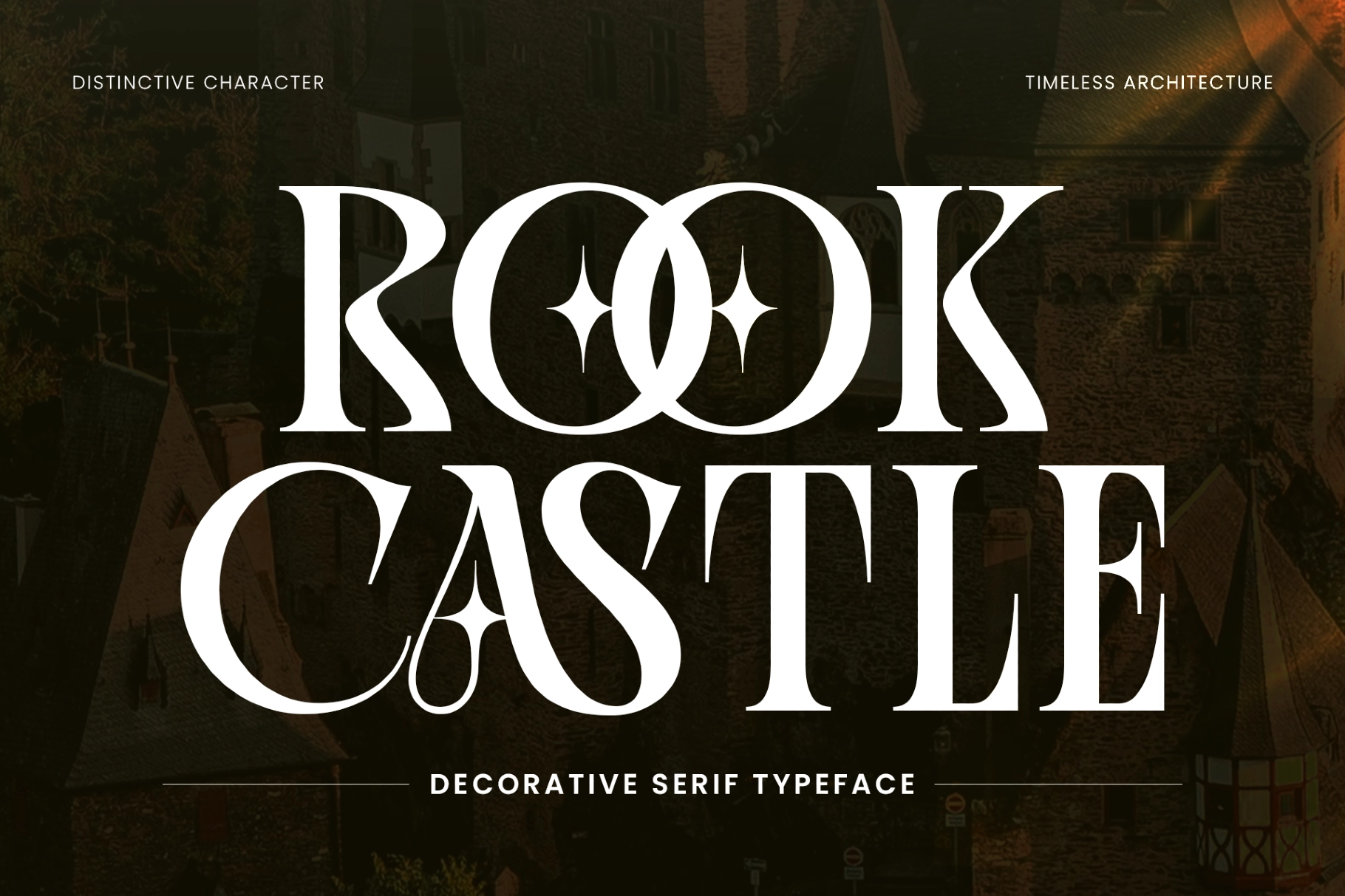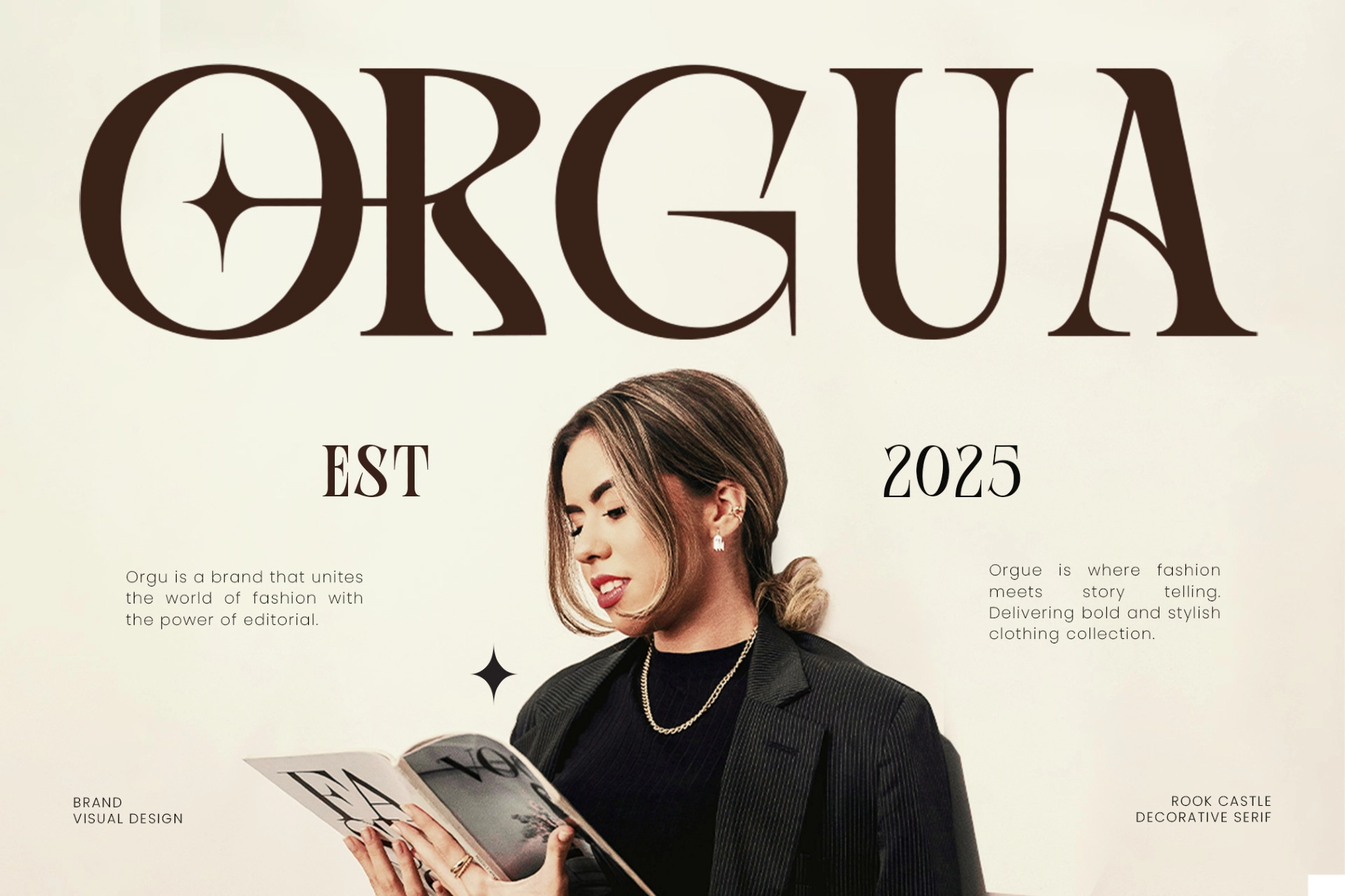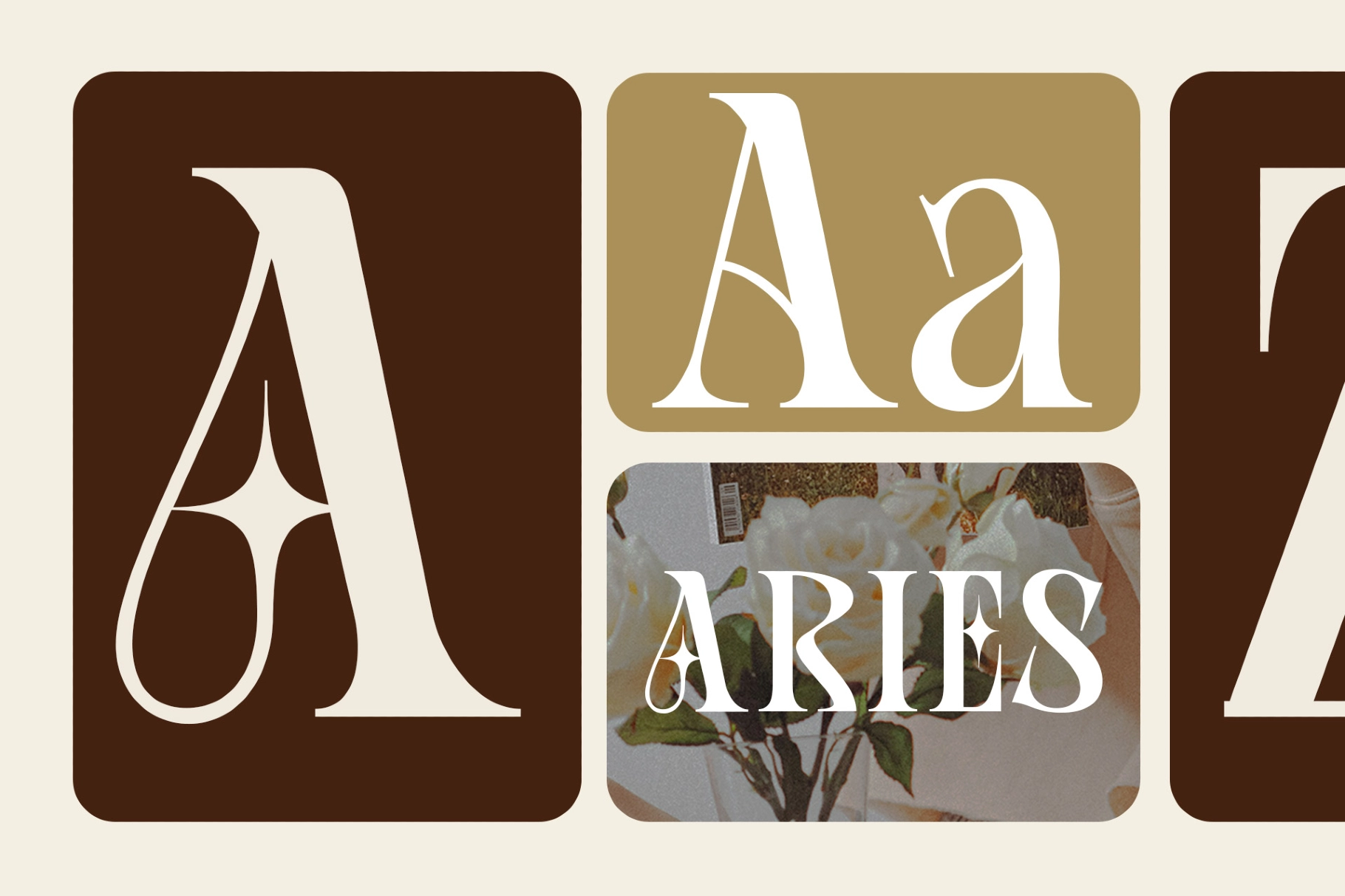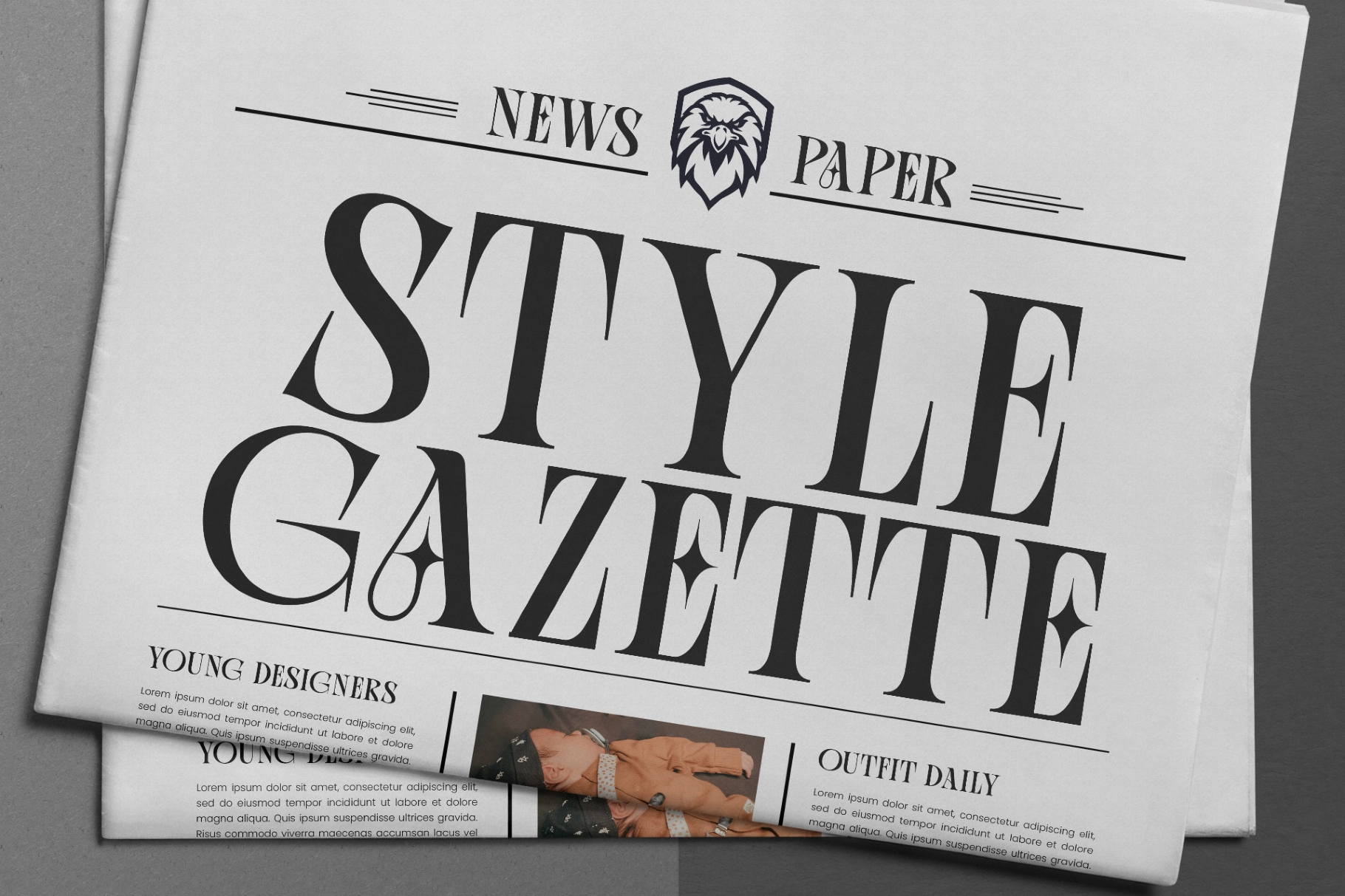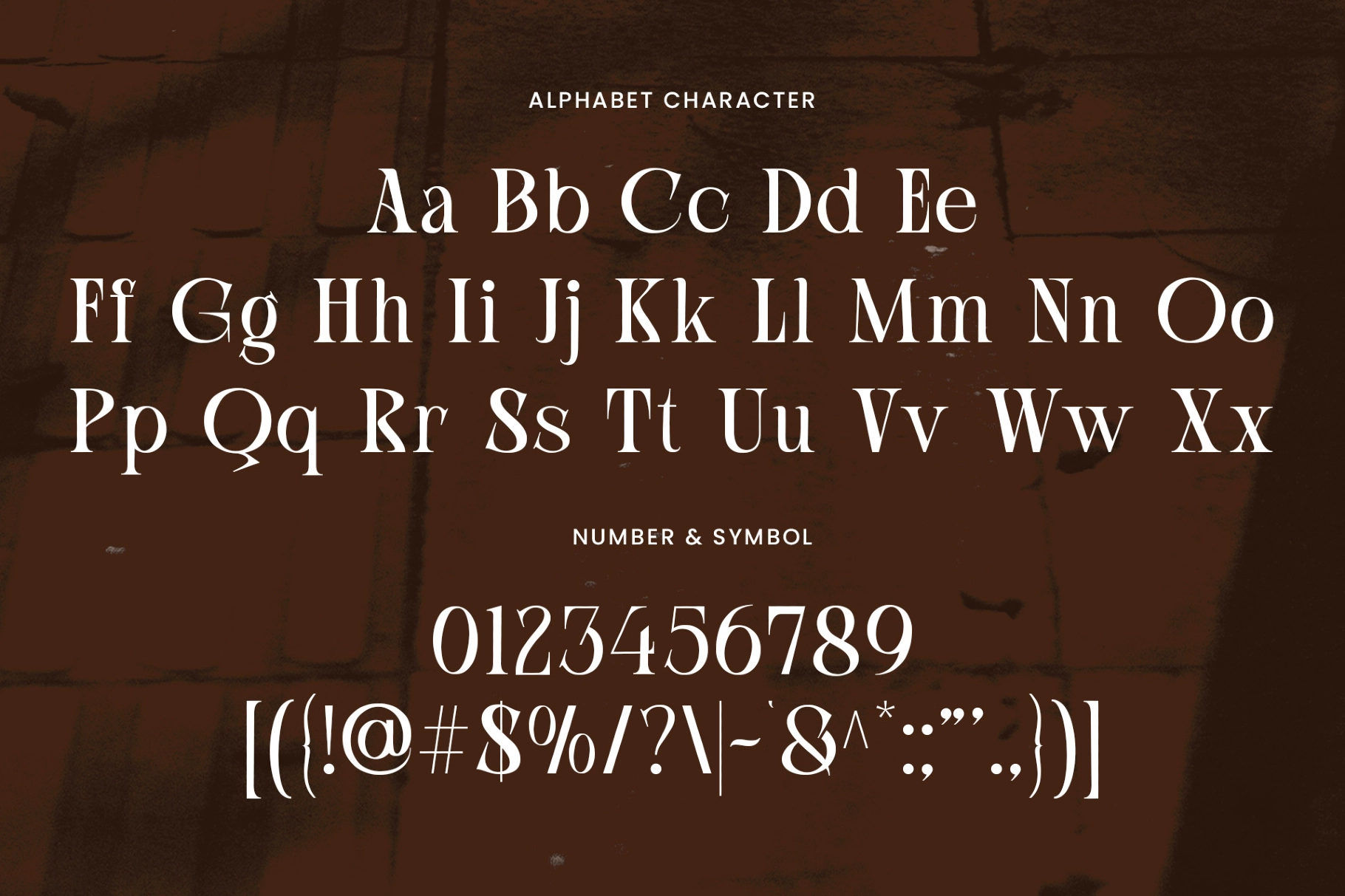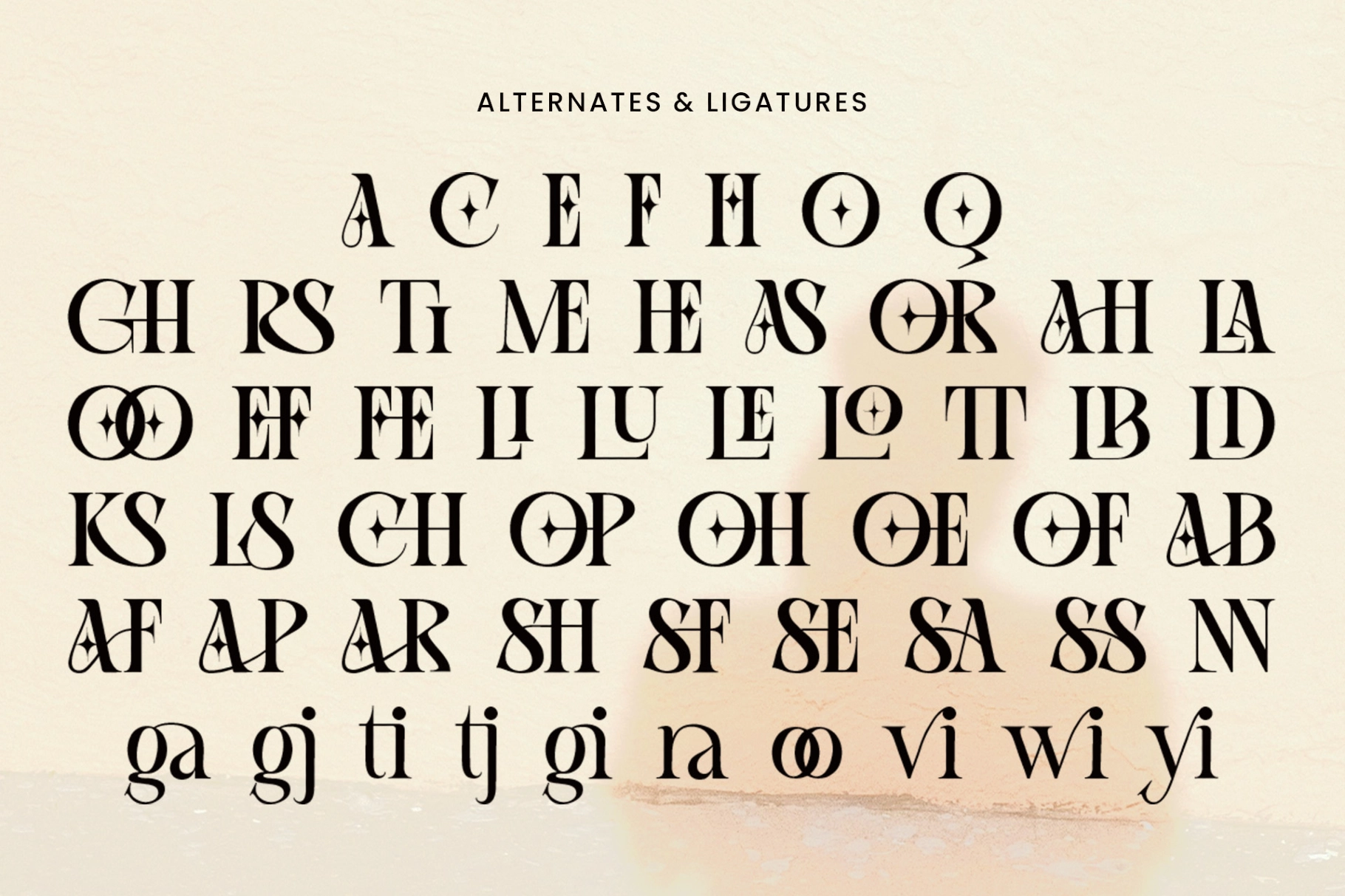
Rook Castle – Bold Gothic Display Font
Rook Castle is a decorative serif font with extreme stroke contrast, sharp bracketed serifs, and letterforms that carry an ornamental weight — the kind of construction that reads somewhere between classical titling type and contemporary fashion editorial. Several uppercase alternates embed four-pointed star glyphs directly into the counters of O, C, and Q, giving individual letters a heraldic, mark-like presence. The ligature set pairs letters into interlocking forms that tighten up large-scale settings without any manual kerning work.
It holds its ground at display sizes and goes loud on poster headlines, luxury brand identities, fashion magazine covers, book titles, cosmetics packaging, and event branding with a high-contrast, ceremonial tone.